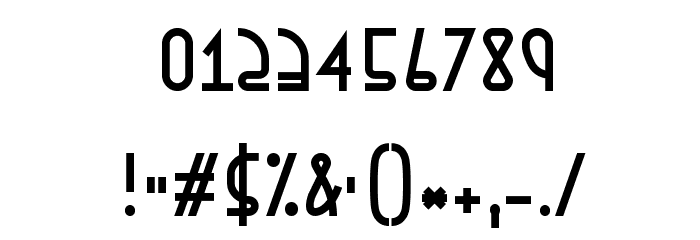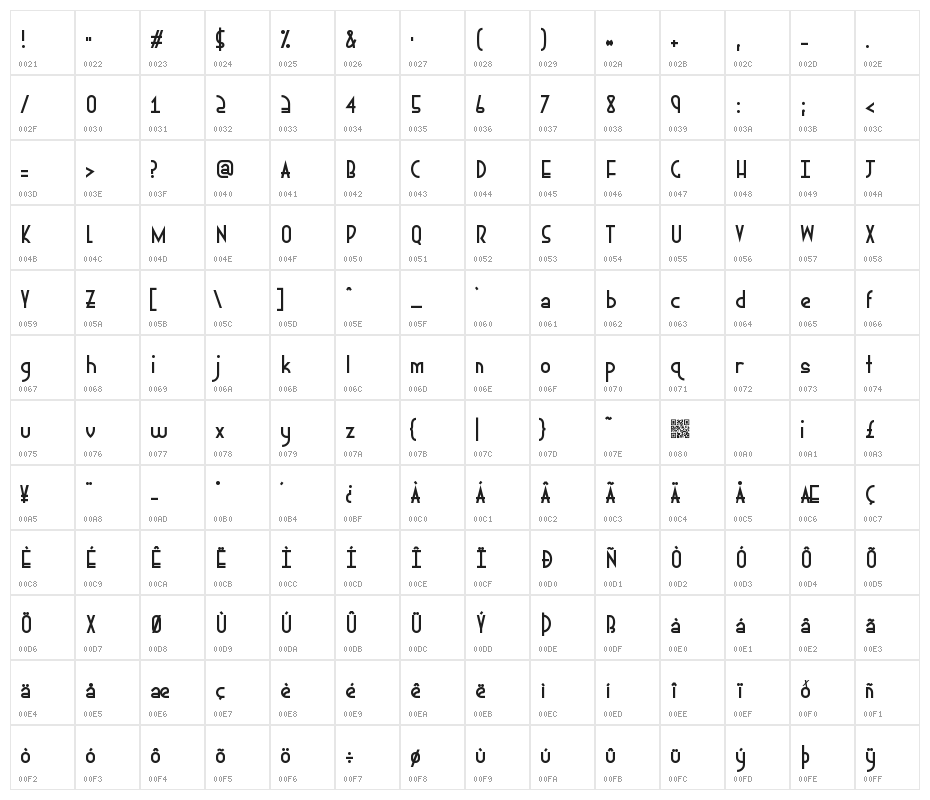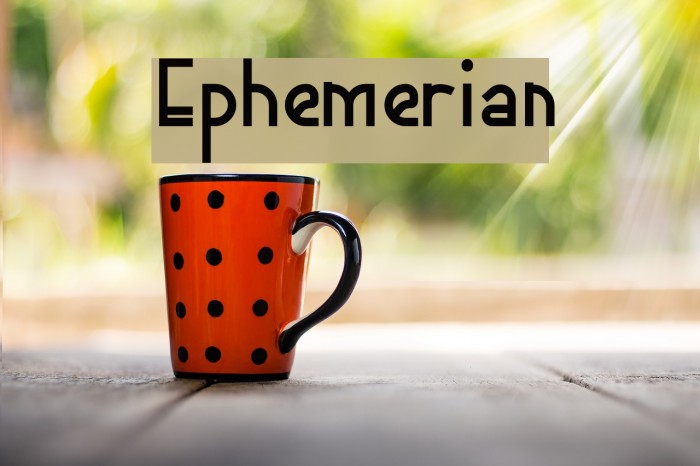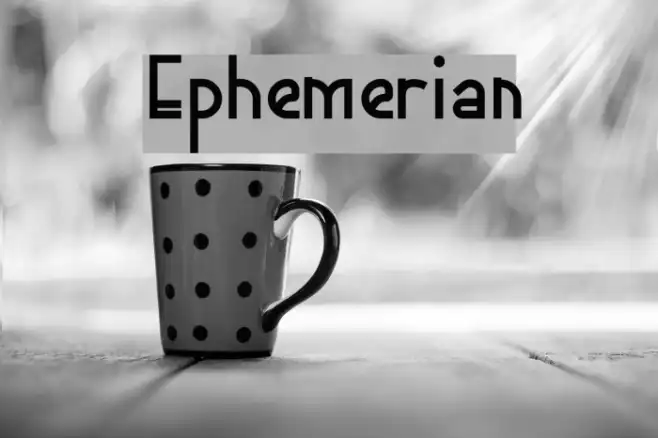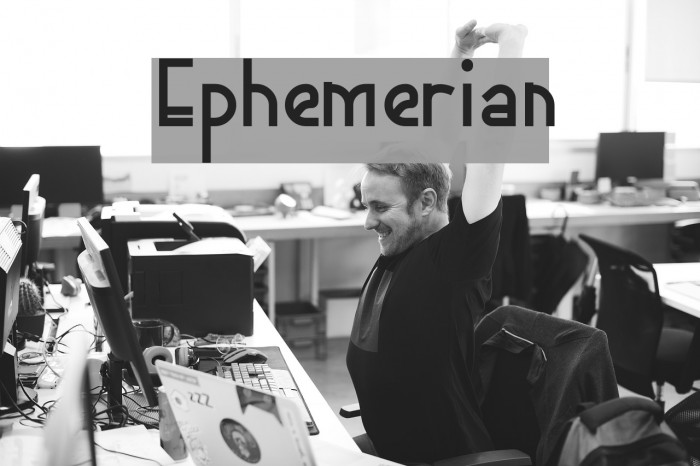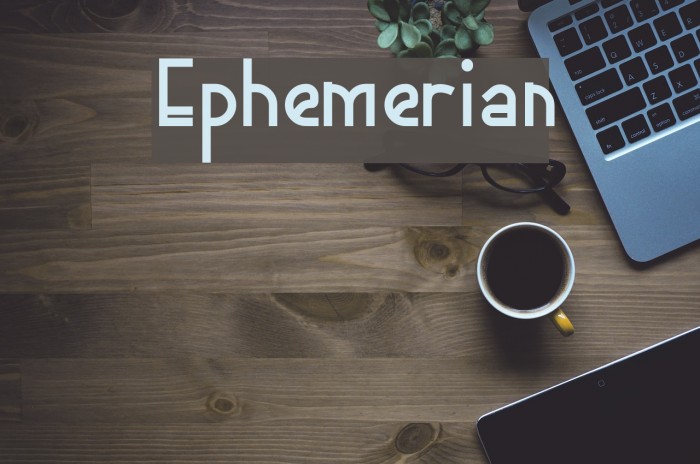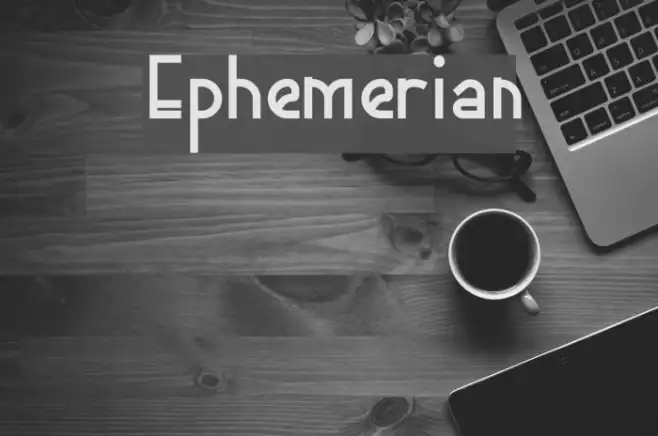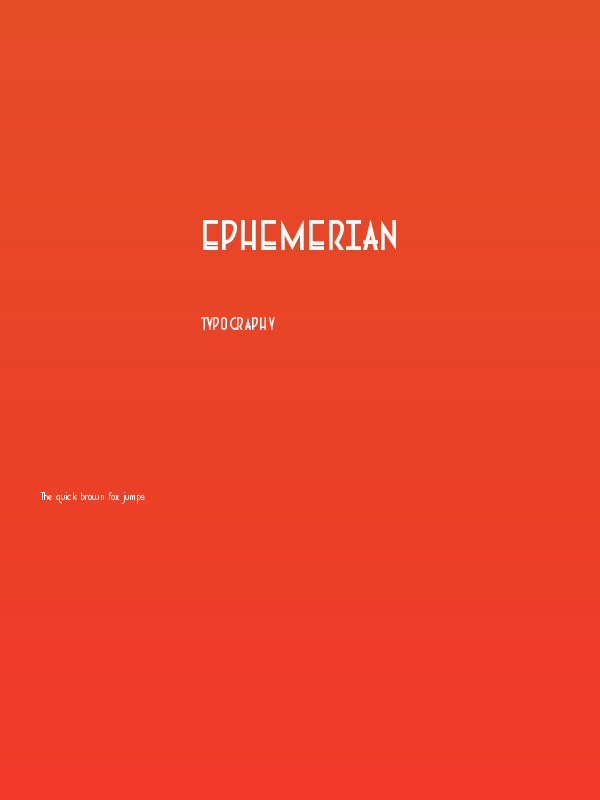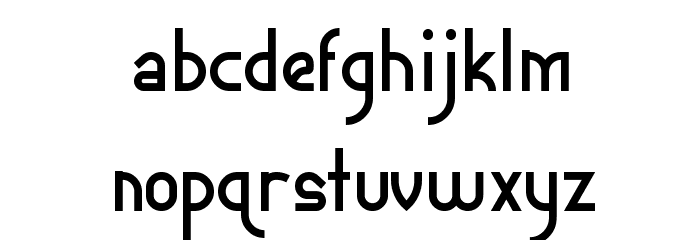
Ephemerian Font
Ephemerian Description
This font features a unique and modern design with a geometric influence. The uppercase letters are bold and angular, with distinct sharp edges and a slight futuristic feel. The lowercase letters maintain a consistent style, offering a smooth transition between characters. Numbers are designed with a similar geometric style, ensuring uniformity across the font. Special characters are included, maintaining the overall aesthetic. The font's clean lines and structured form make it suitable for various design applications.
| Proposed Projects | Ideal for branding, posters, and digital media where a modern and distinctive look is desired. |